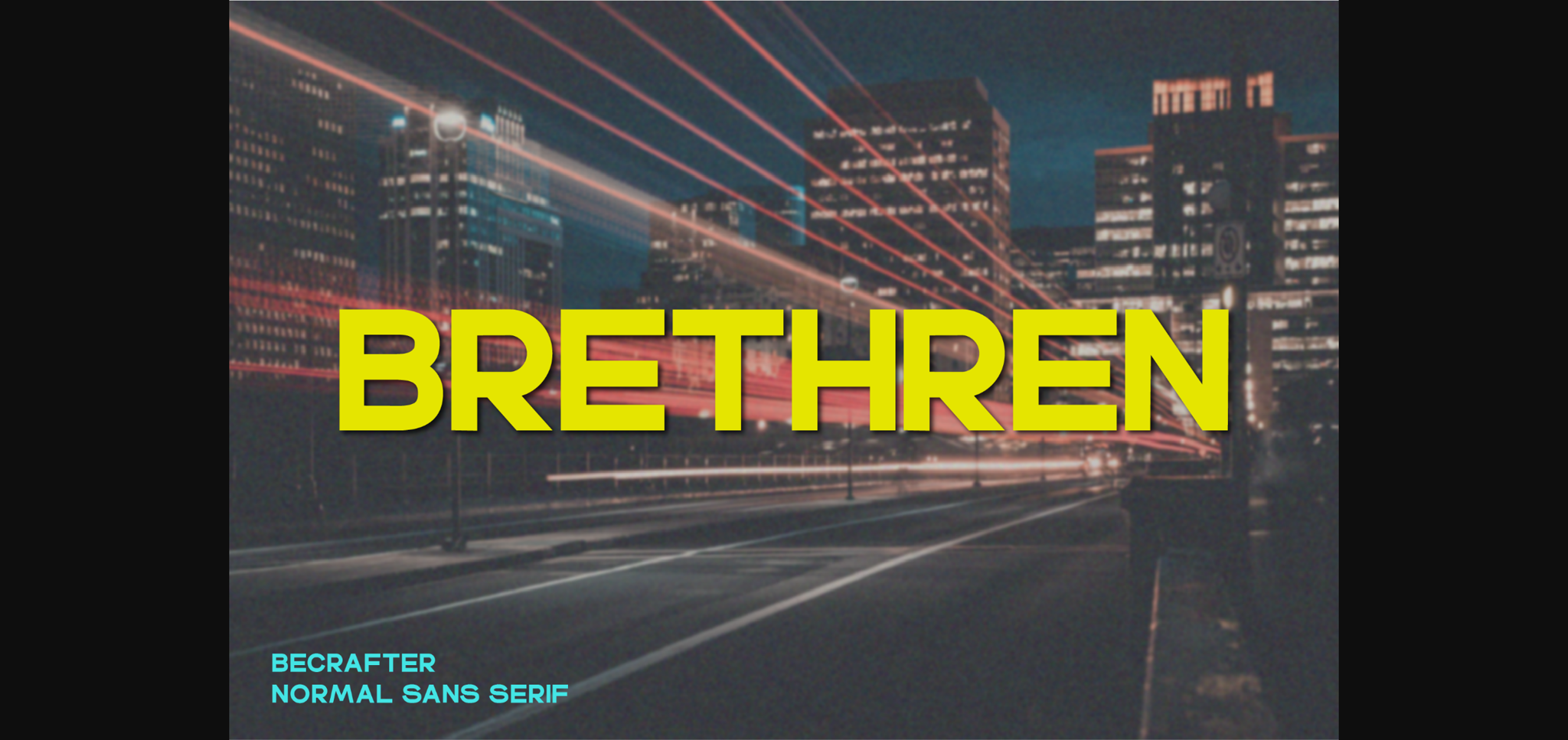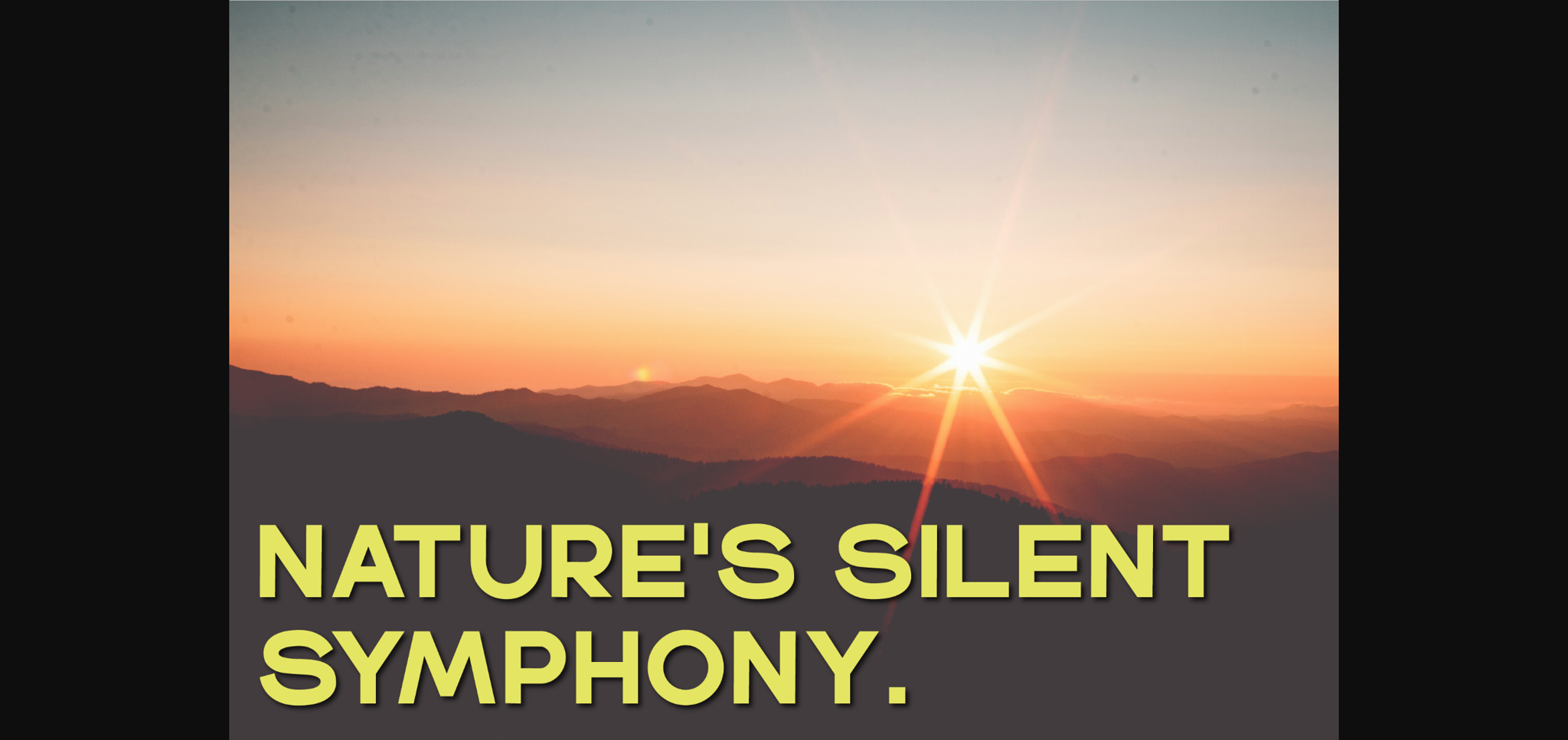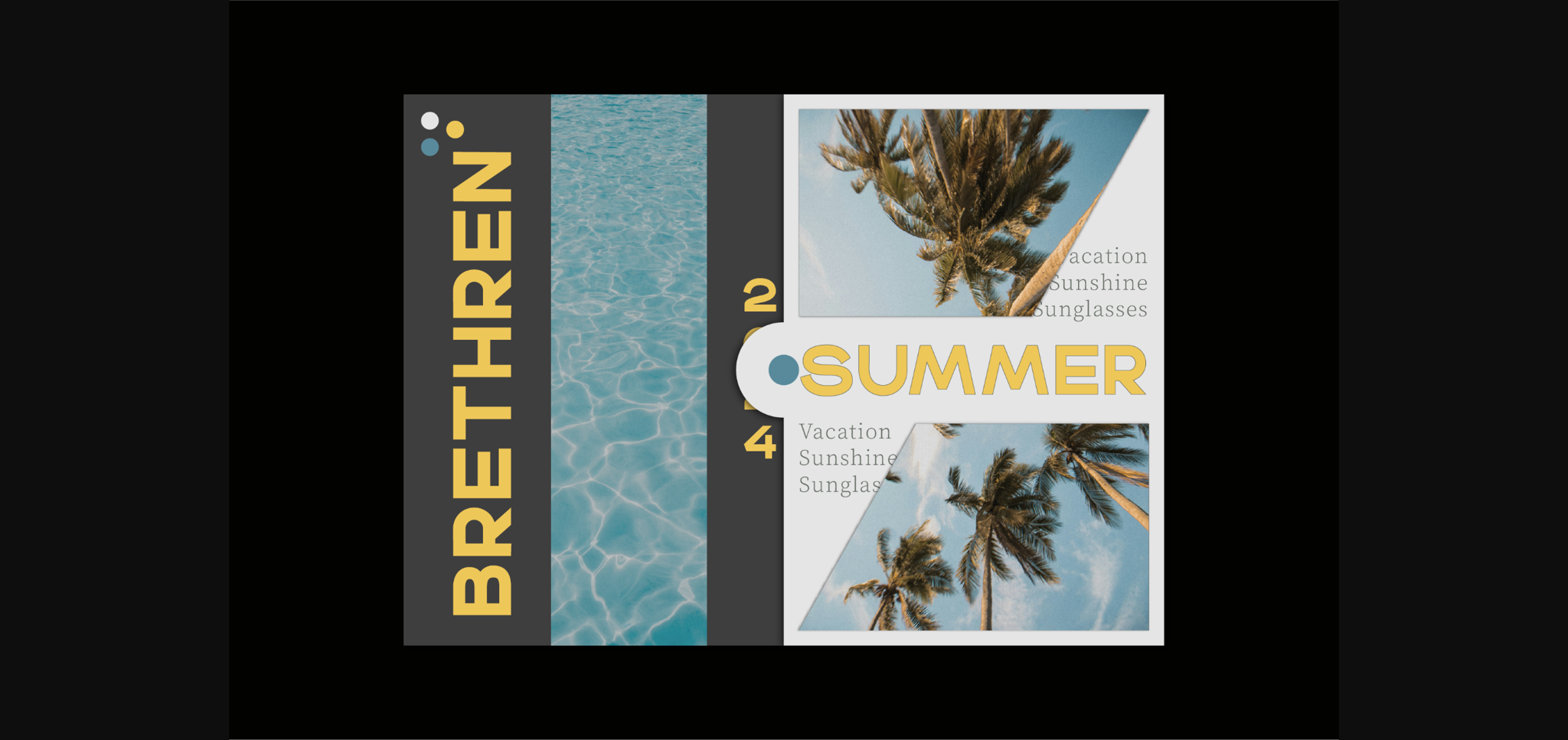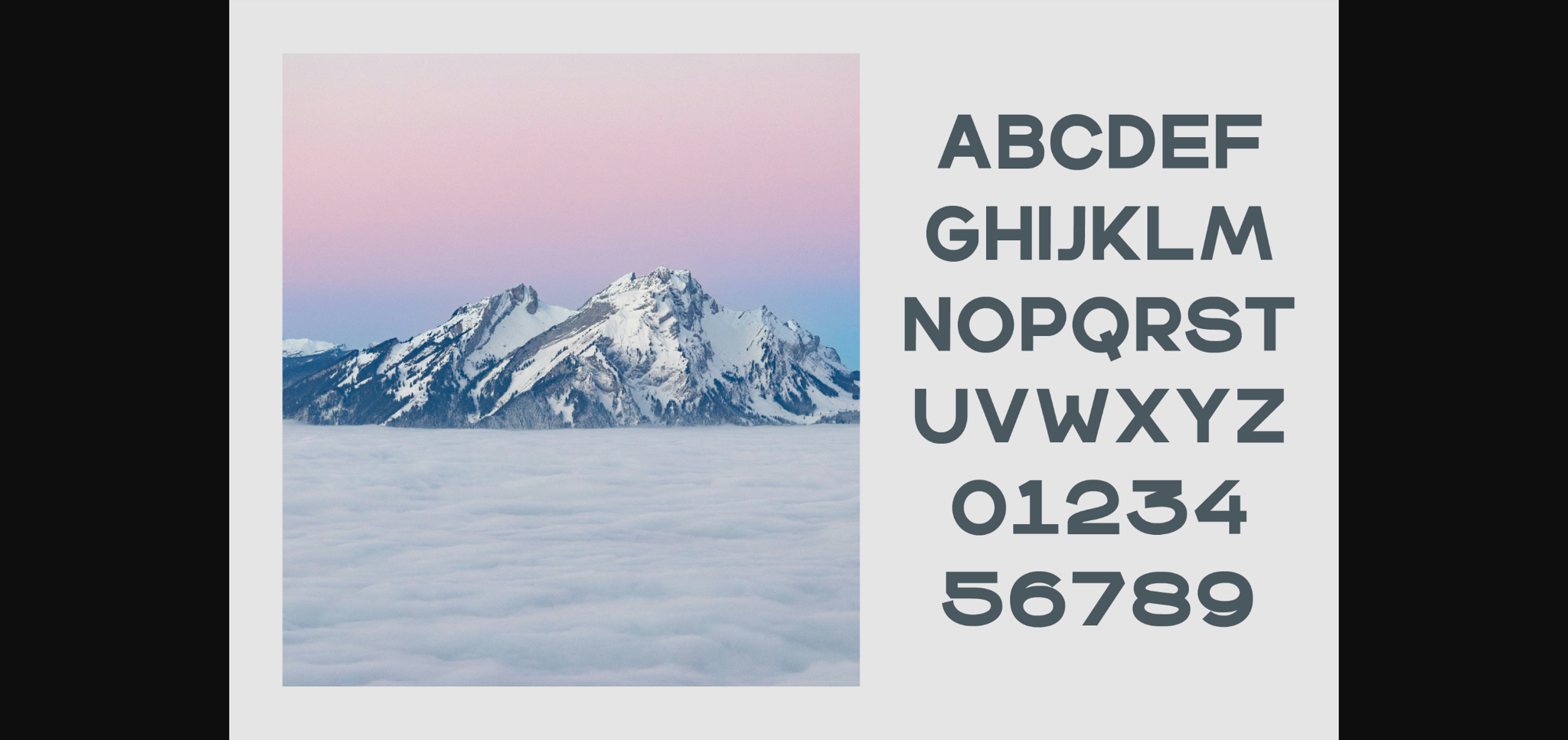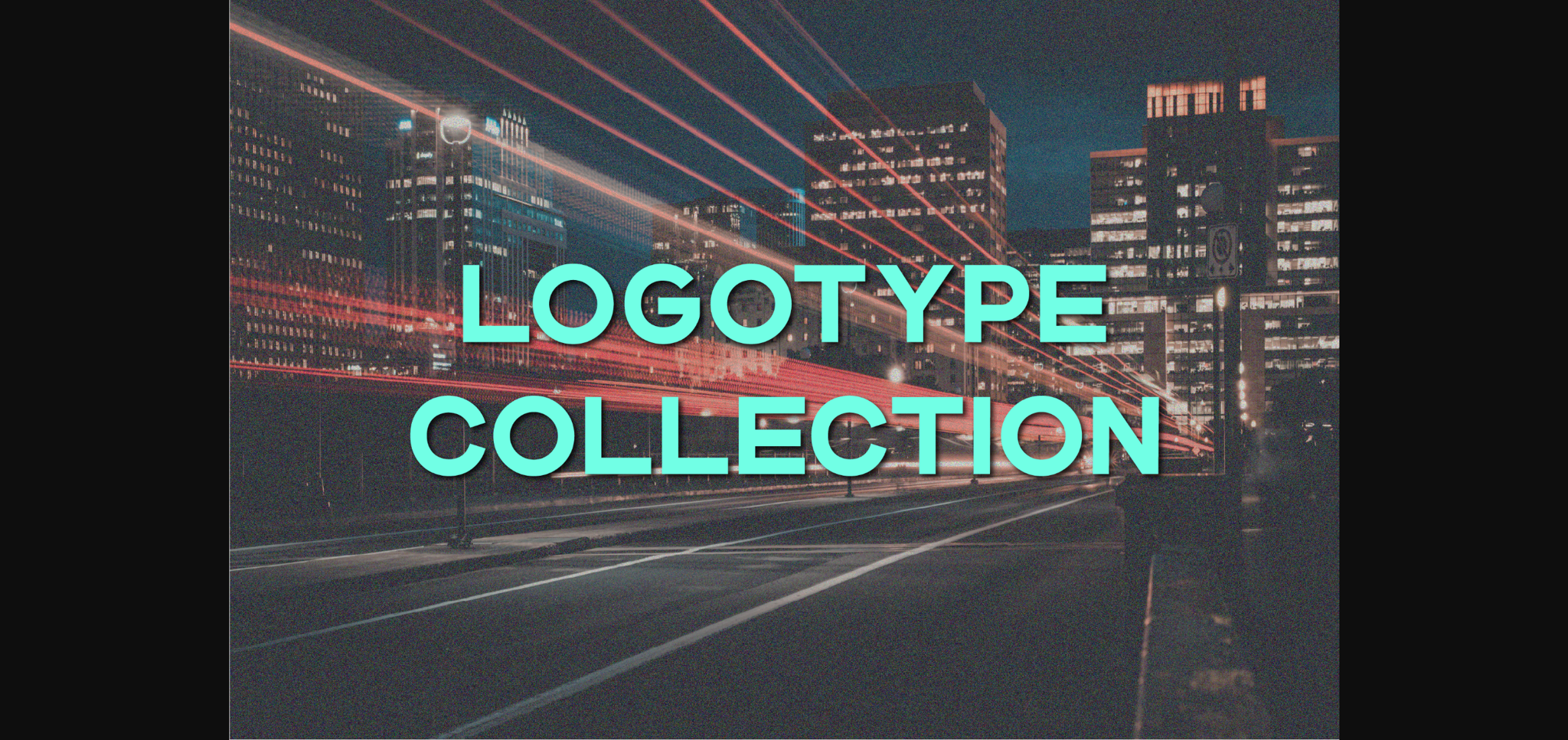
Brethren Font
About Brethren Font
Immerse yourself in the commanding presence of the Brethren Font – a strikingly bold sans-serif font that possesses refined sharp edges, instilling an air of elegance through its robust design. Included as both .ttf and .otf file types, the versatility of the Brethren Font shines across a spectrum of creative avenues, from the polished pages of magazine layouts to the casual, inviting nature of event invitations. Further its reach through inspiring quotes and eye-catching headers, guiding a multitude of designs that demand the spotlight. In the sea of typography, let the Brethren Font be your anchor, bestowing a distinct character and gravitas to your projects.